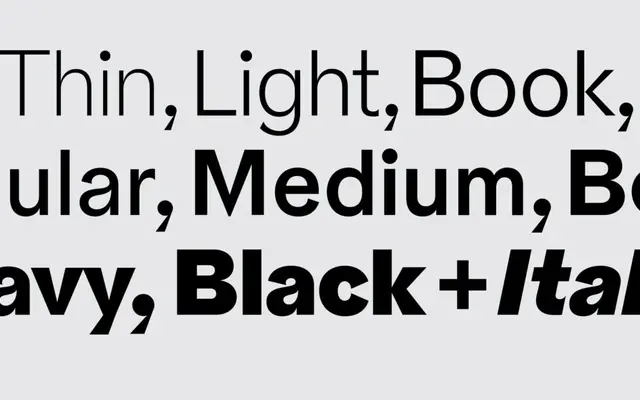
Pivot Grotesk
Nouvelle Noire · Anton Studer · 2024
A grotesque by Anton Studer that blends the irregularity of early grotesques with forms derived from radial timekeeping lines and logarithmic spirals, originally cut for Theater Basel in 2020.
Designed by Anton Studer and originally commissioned by Nouvelle Noire for Theater Basel in 2020, Pivot Grotesk arrived as a retail release in 2024 after refinement and expansion to sixteen styles across eight weights. Its letterforms draw on two visual sources: the radial lines of clocks and movement diagrams, and the logarithmic spirals seen in natural and astronomical phenomena. The result sits outside rational geometric sans territory, carrying an organic energy that makes it suited to cultural institutions and editorial contexts.
Described explicitly as a grotesque by the foundry, drawing from early grotesque traditions while blending radial and logarithmic spiral forms, resulting in a distinctive, energetic take on the genre.